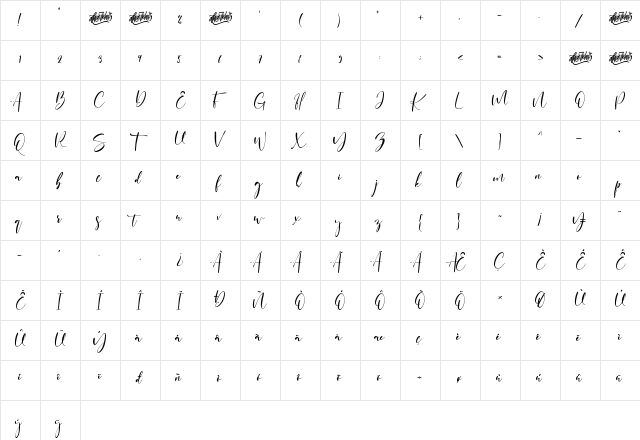
Saturated Regular Font Preview
Saturated Regular
Saturated Regular Font Details
Design Context for Saturated Typeface
Saturated is a composed and adaptable typeface that performs quietly and consistently across a wide range of design contexts.
Pro Tip: Use Saturated in both headline and body roles to test its range before committing to a single application.